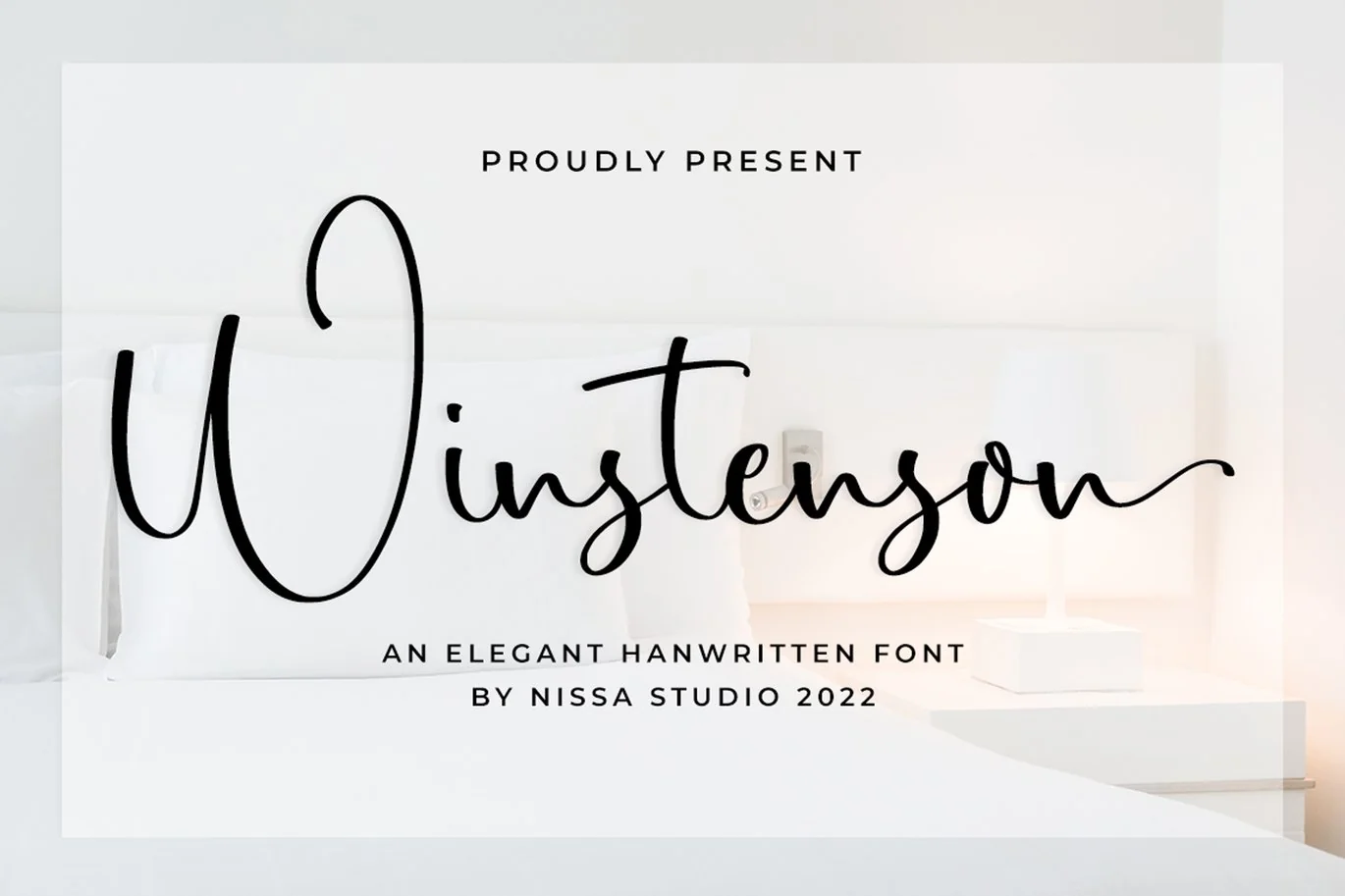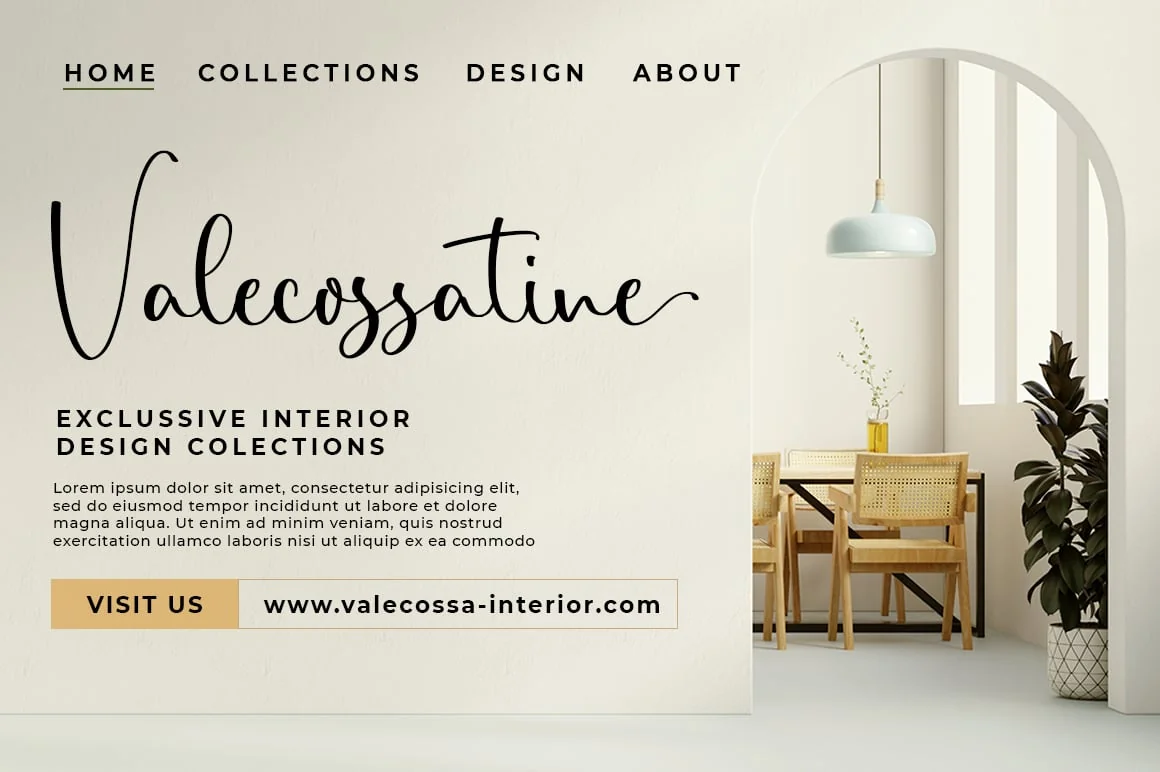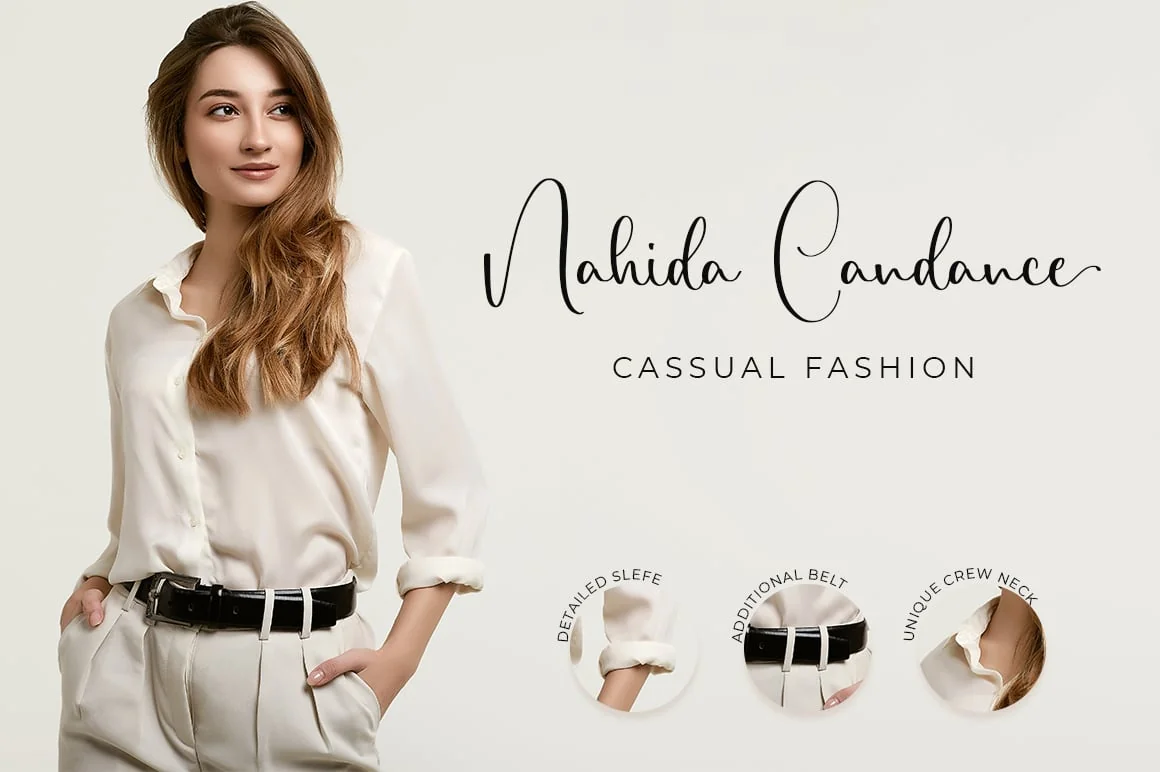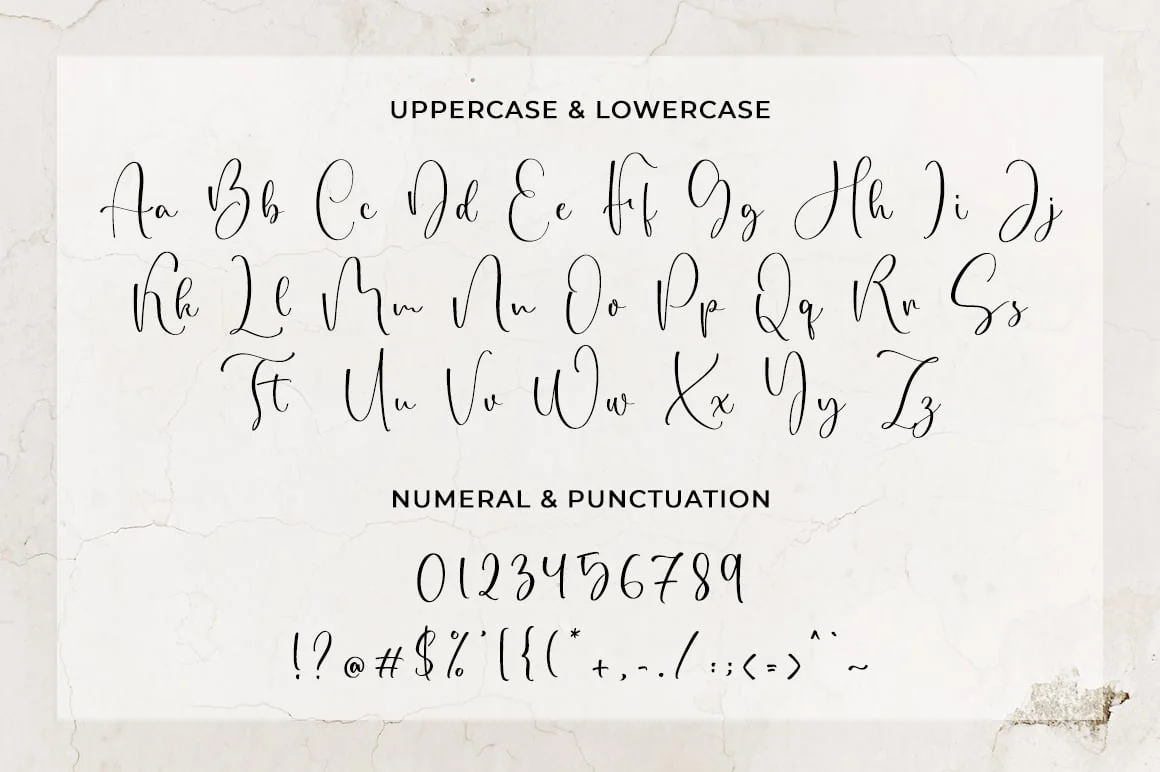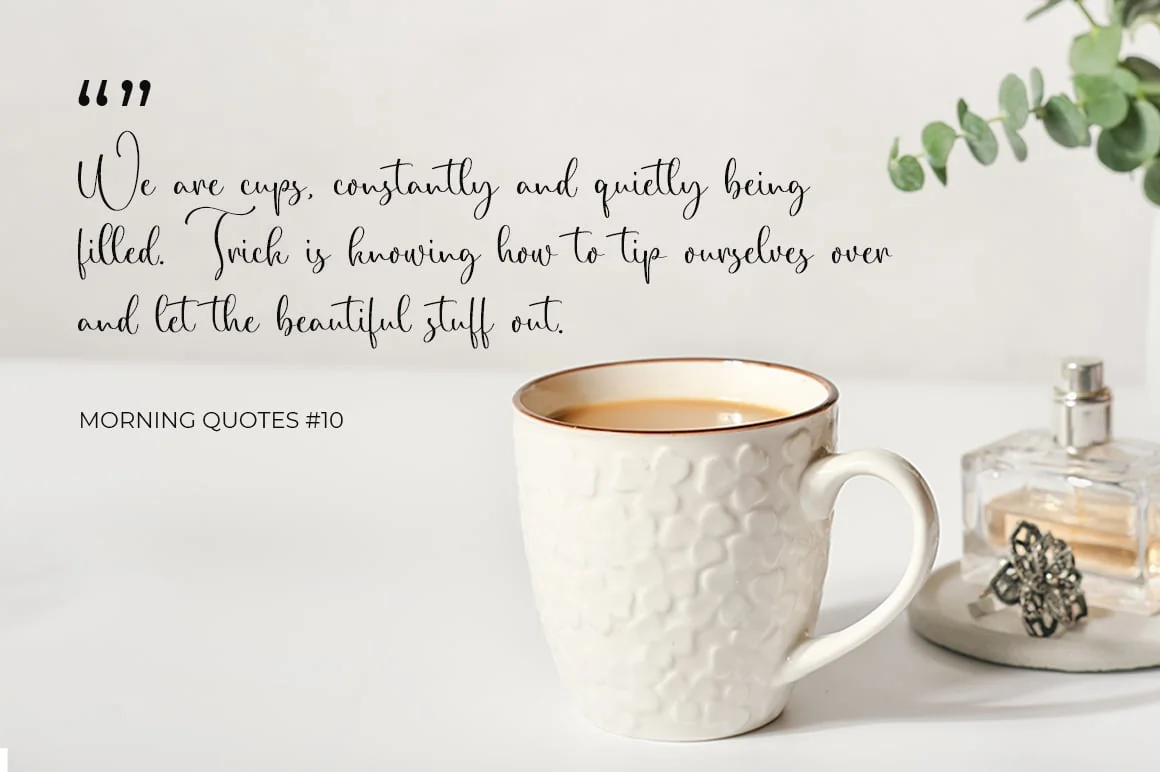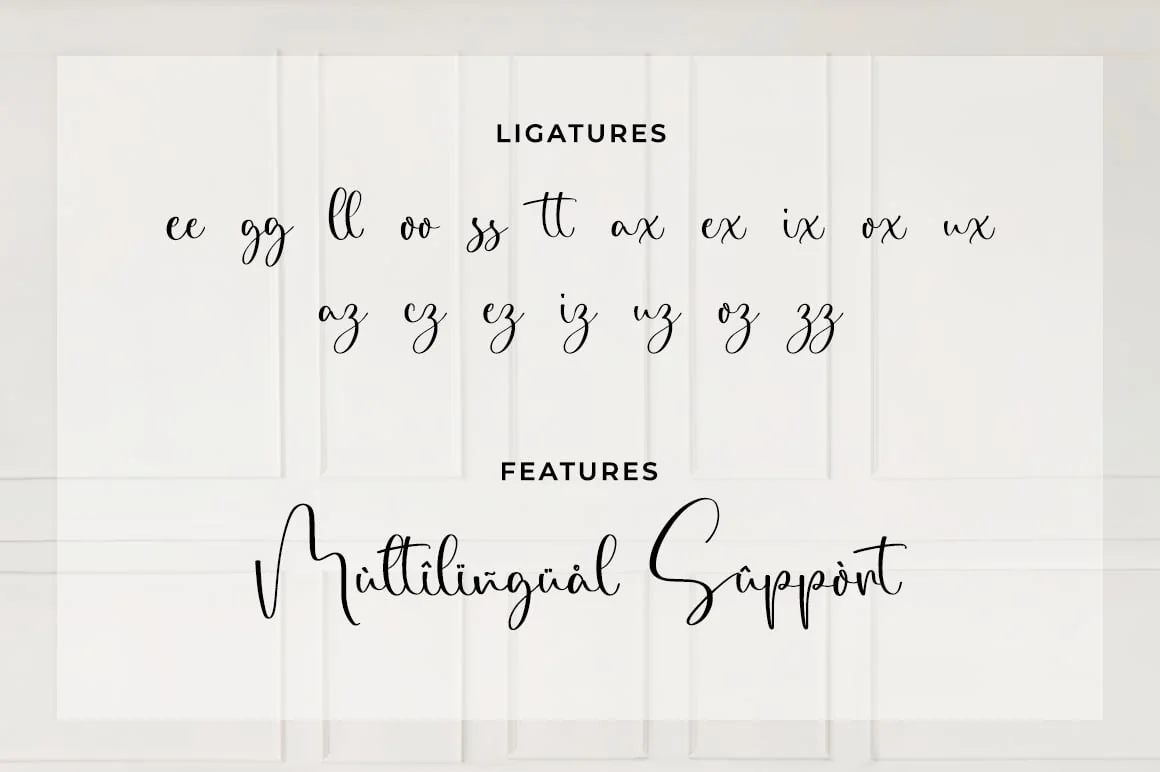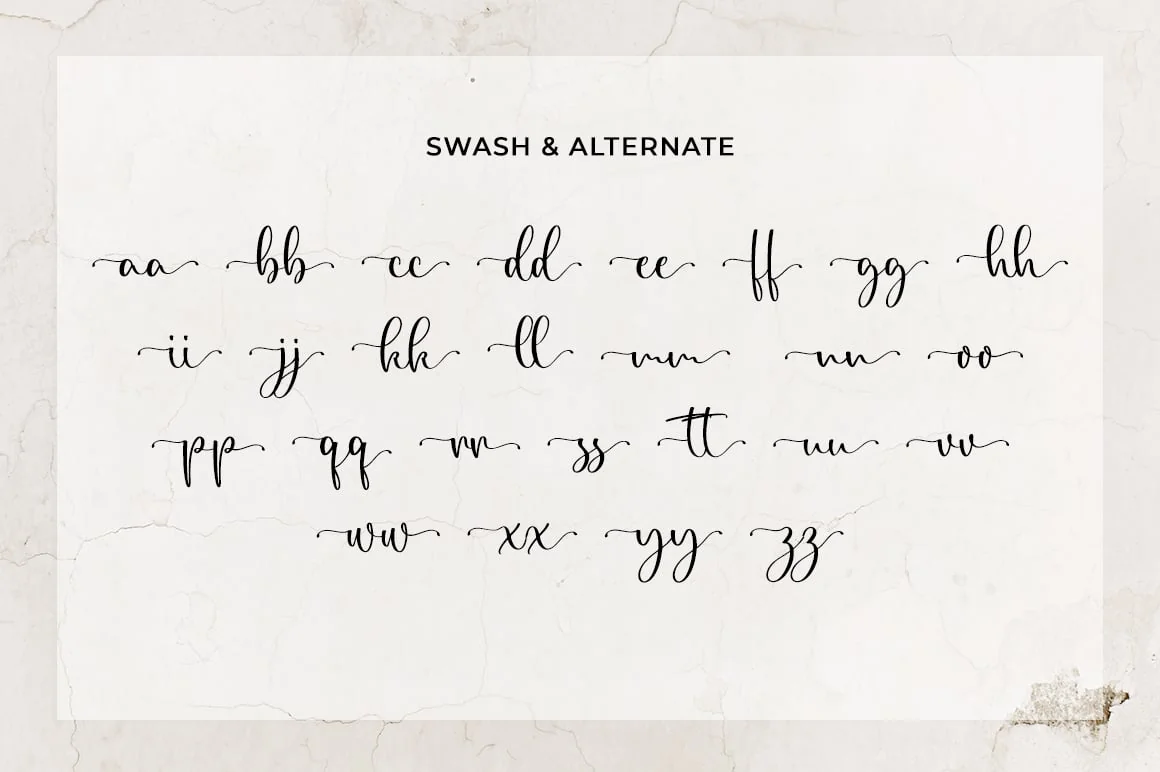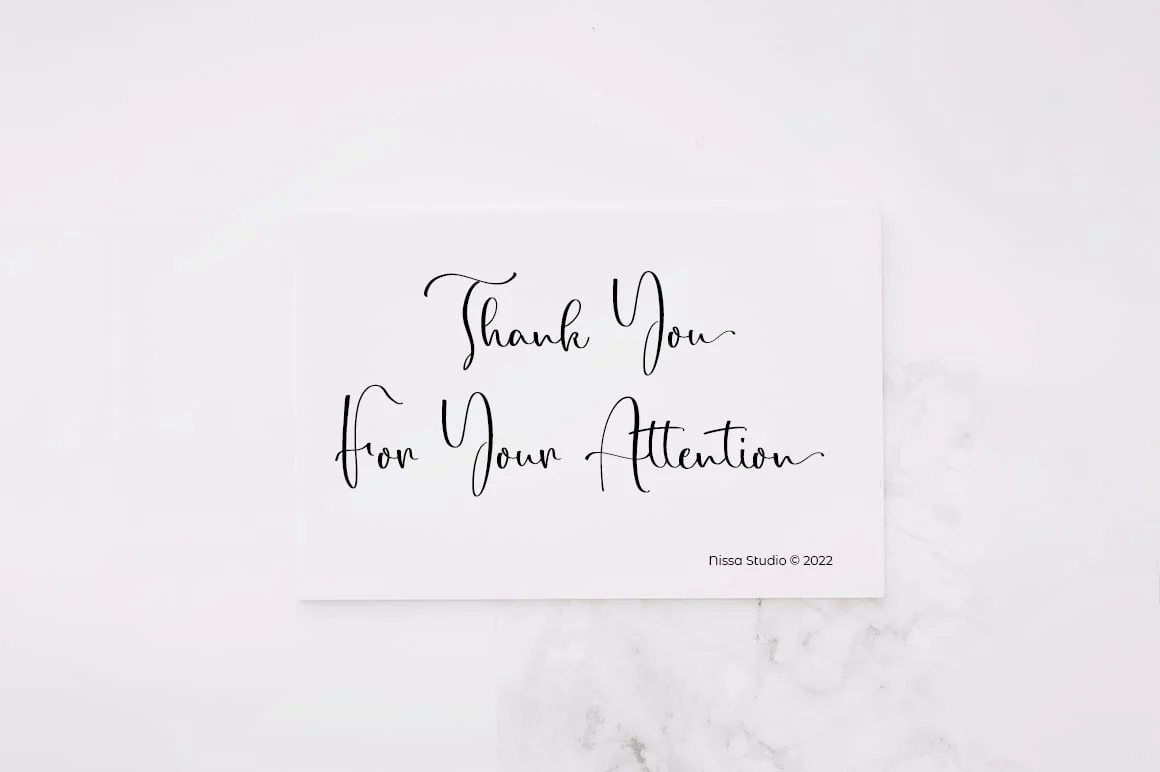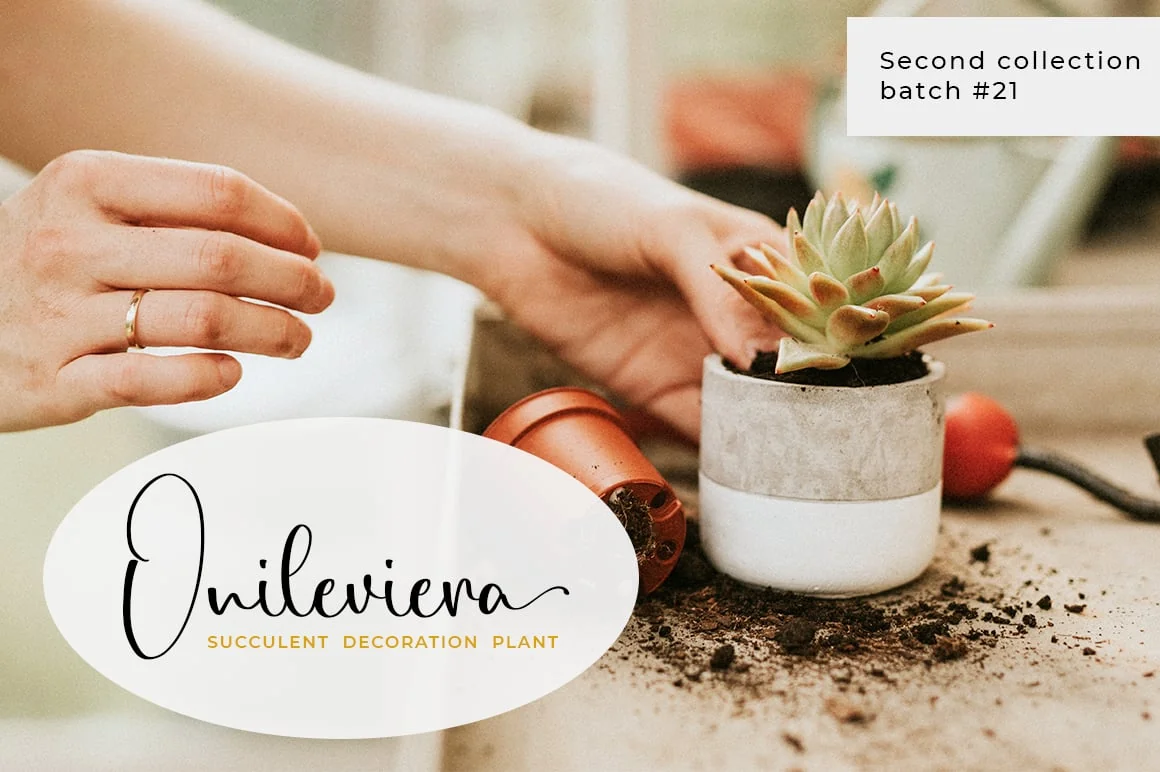
Winstenson – Wedding Font
Winstenson is a stunning and incredibly modern handwritten font. This versatile script font has a wide range of applications ranging from greeting cards to headlines and is guaranteed to add a romantic feel to your next craft.
- Modern Handwritten Font
- Beautiful Swash (Ending tail)
- Beautiful Titling (Beginning tail)
- Special Ligatures